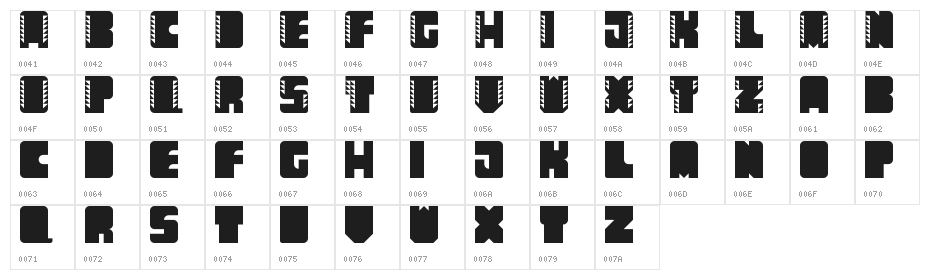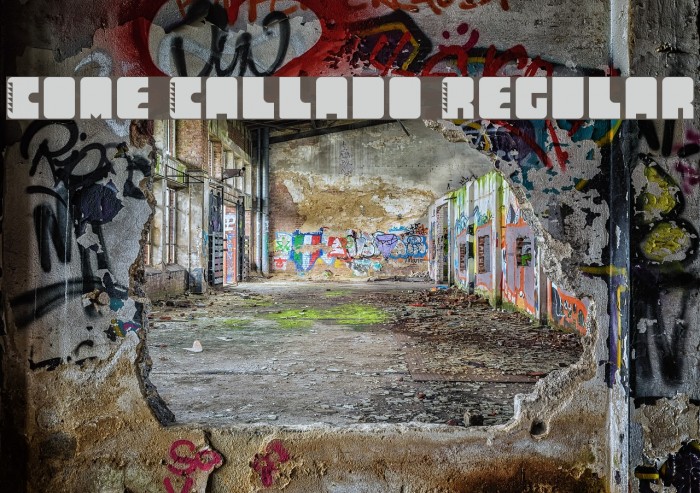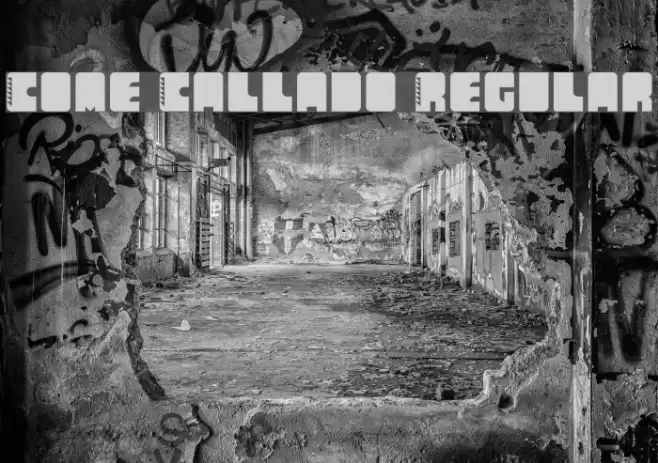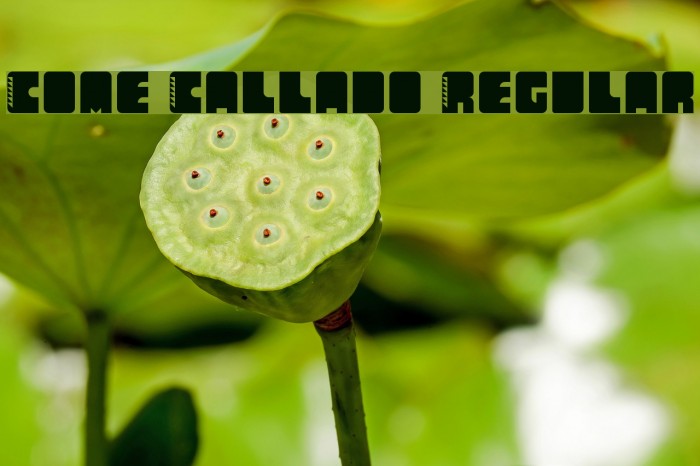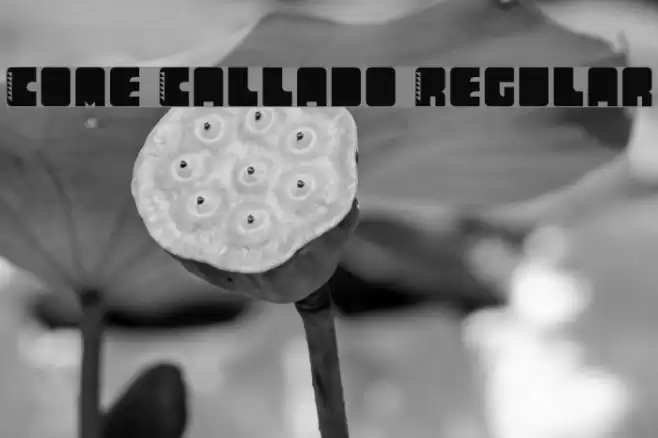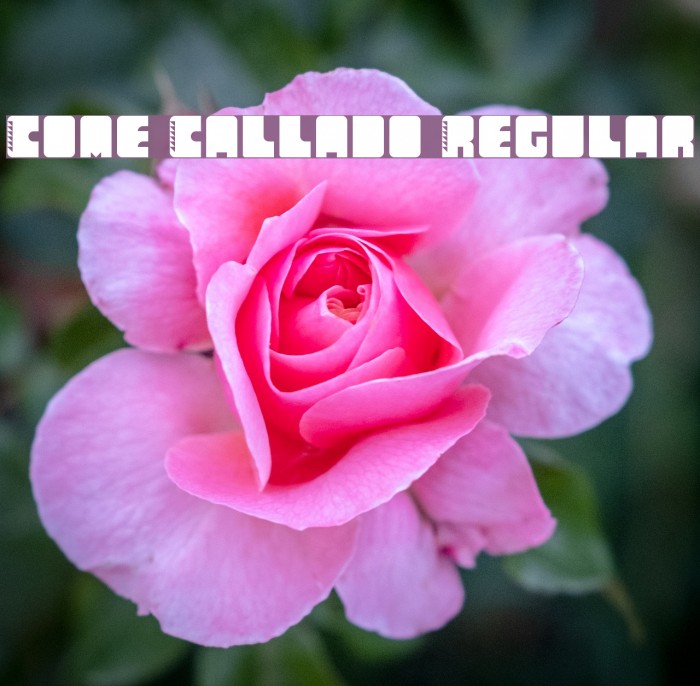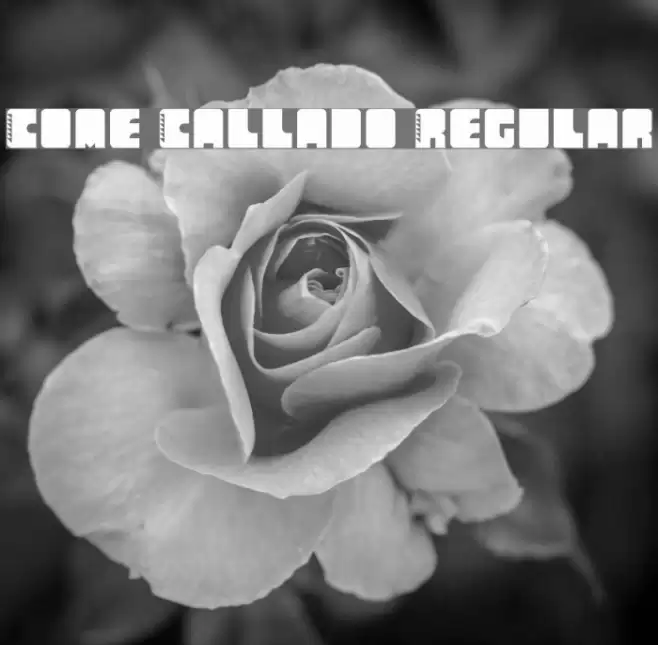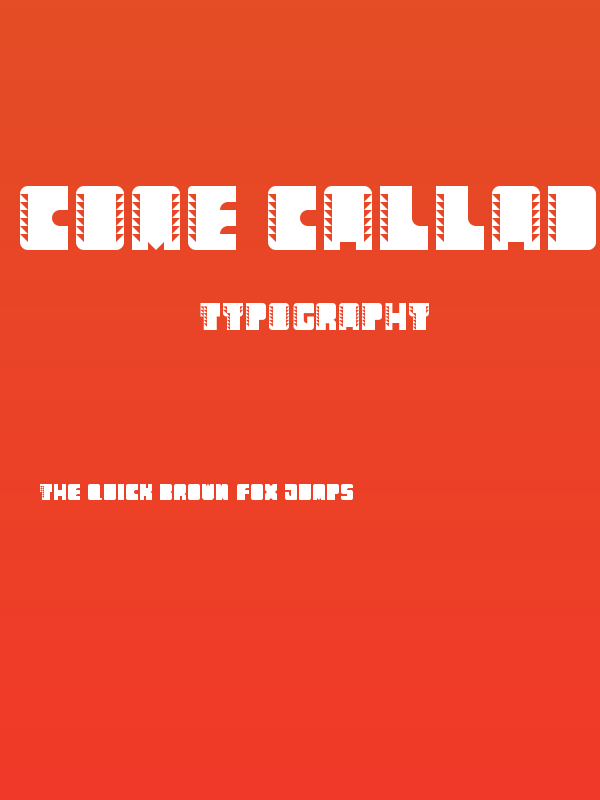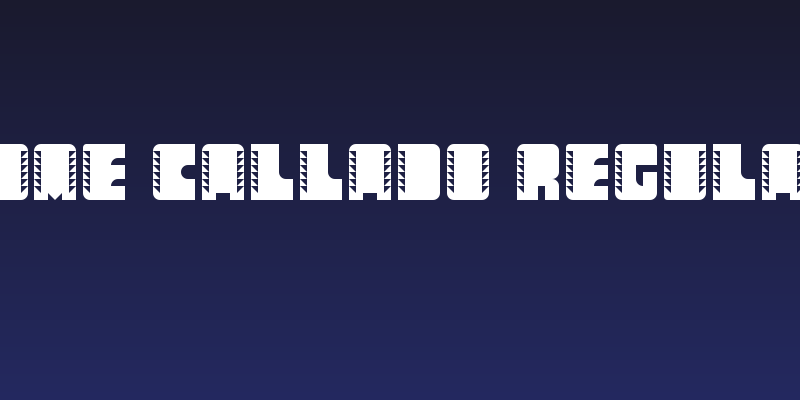
Come Callado Regular Font
Come Callado Regular Description
This font features a bold, geometric design with strong, block-like characters. The uppercase letters have a unique pattern with diagonal stripes, adding a dynamic and modern touch. The lowercase letters maintain the bold aesthetic but without the striped pattern, offering a more solid appearance. The numbers and special characters are consistent with the overall style, ensuring a cohesive look. The font's design is striking and attention-grabbing, making it ideal for projects that require a strong visual impact.
| Proposed Projects | Ideal for posters, branding, and headlines that need a bold, modern look. |